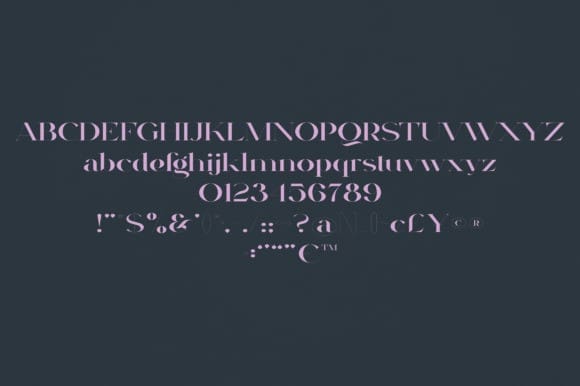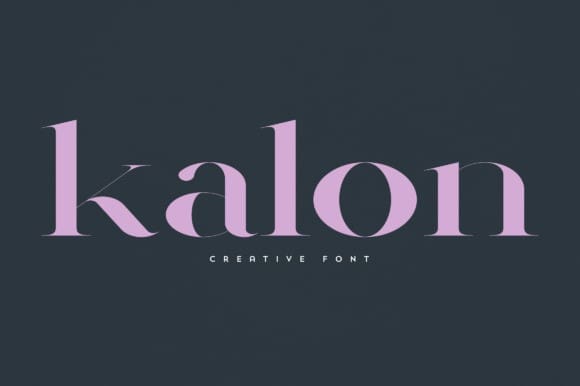
Kalon Font
Kalon Font is an elegant and versatile font that will make your typography truly unique! It will enchant every logo, branding, headline, or plain text!